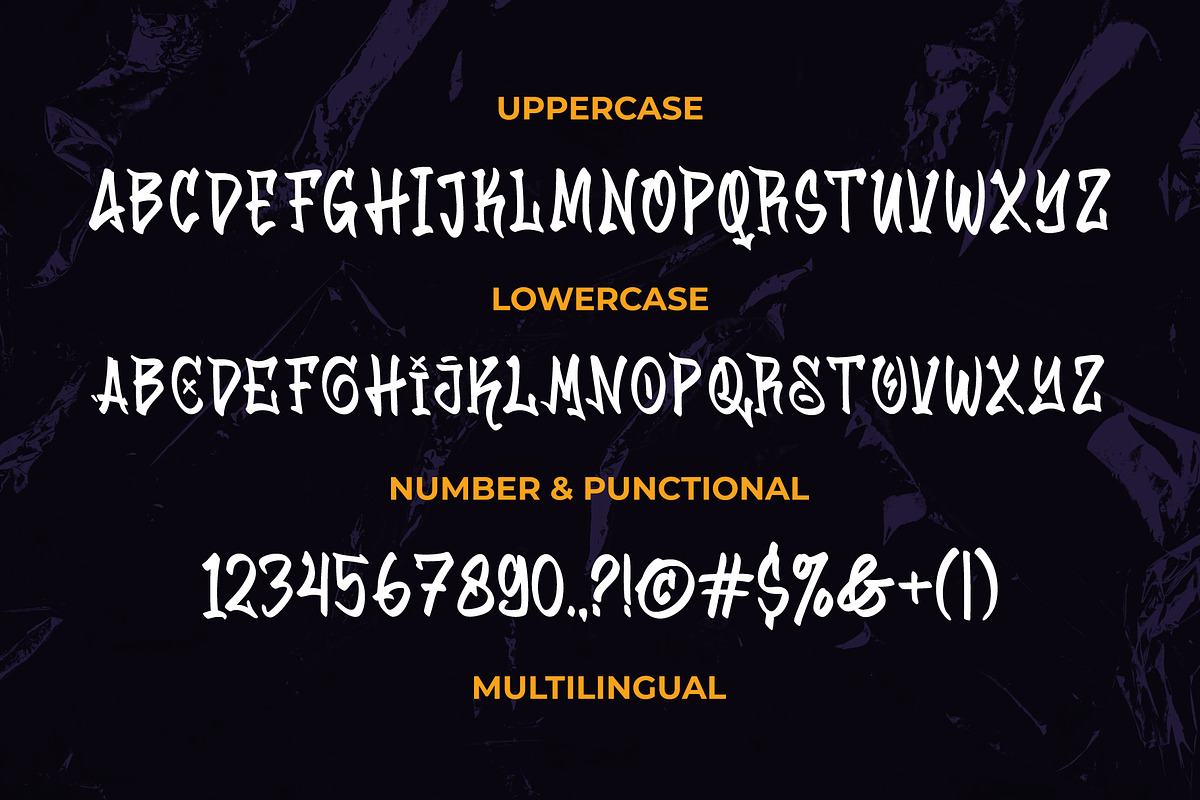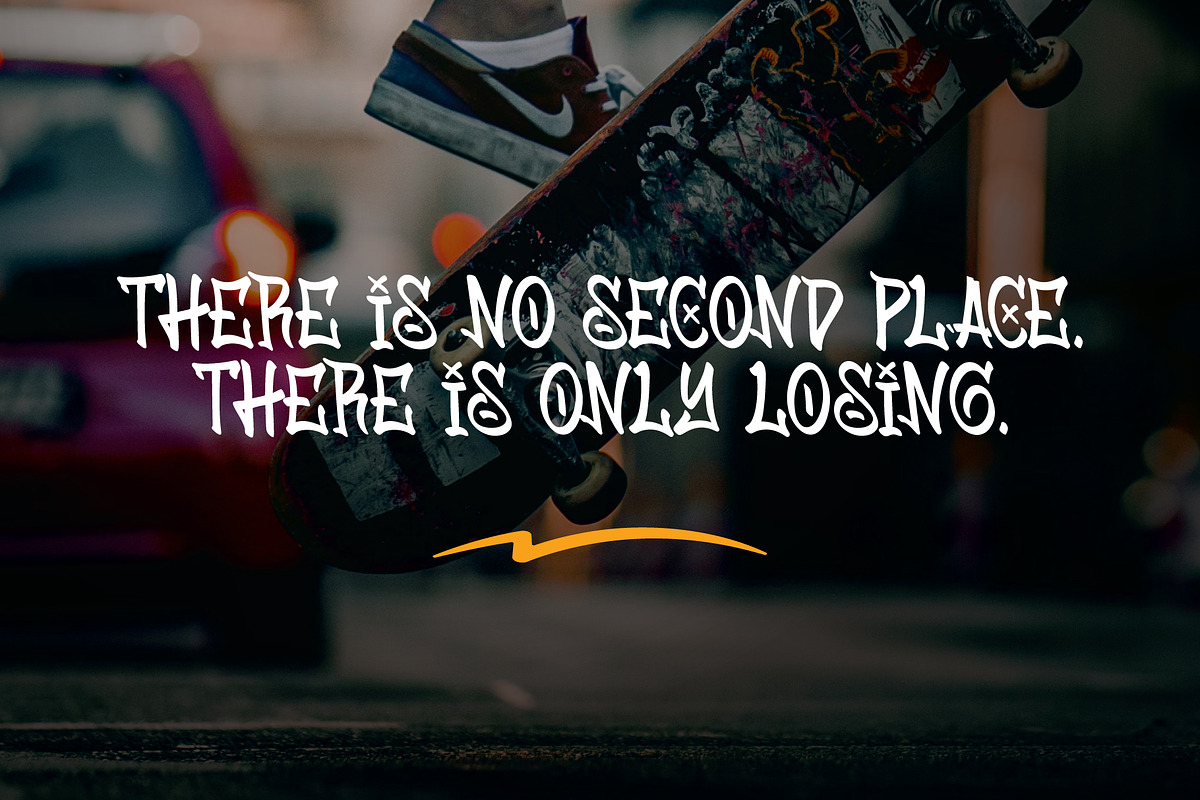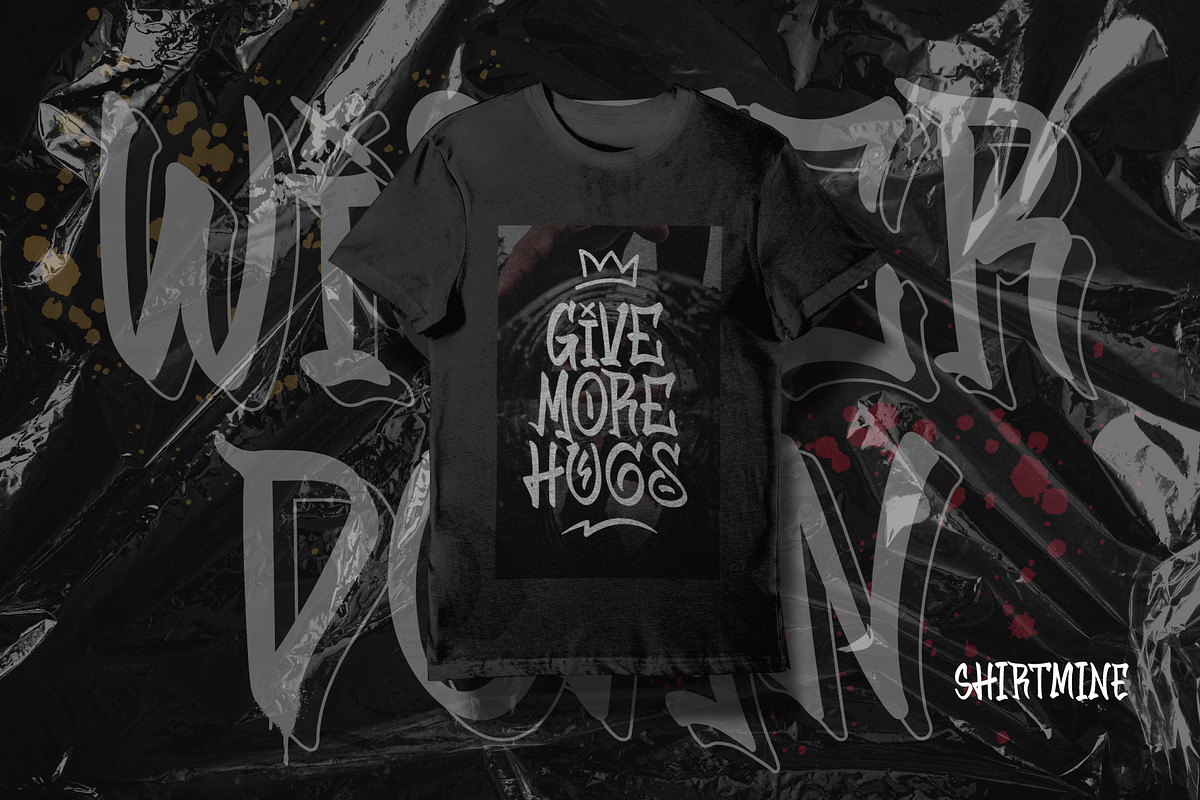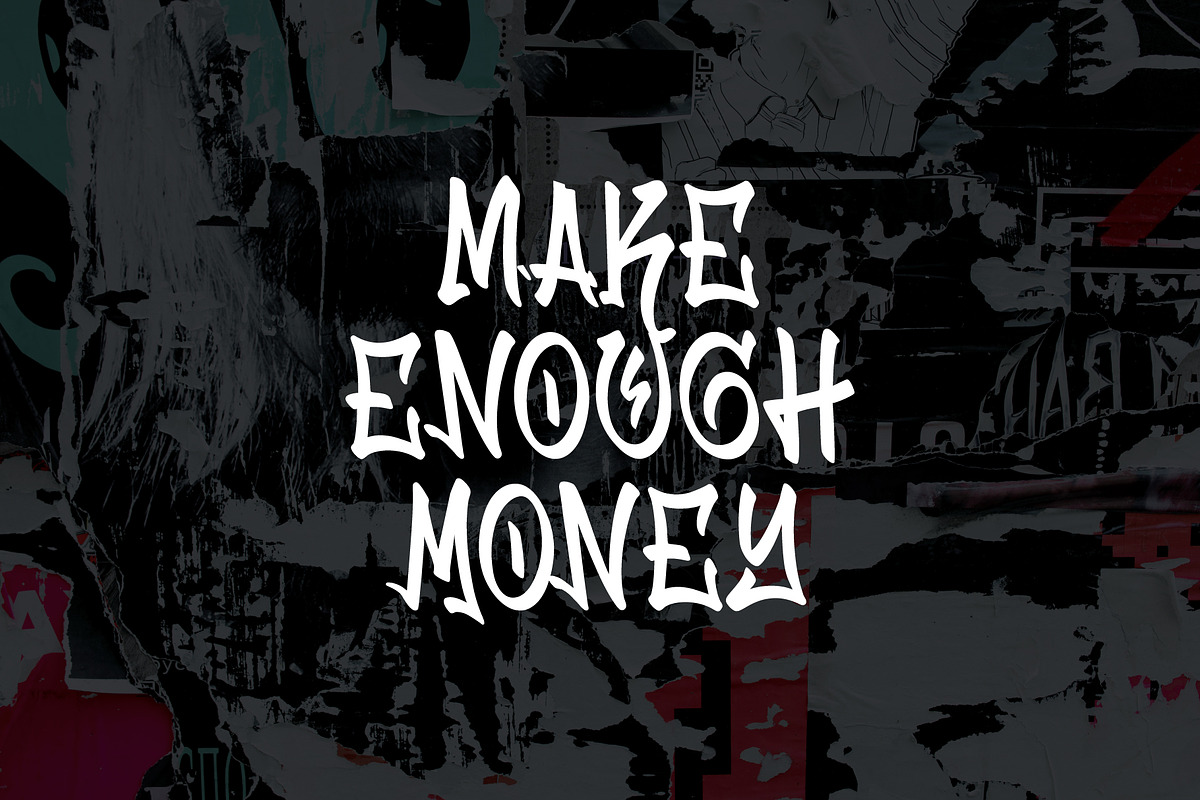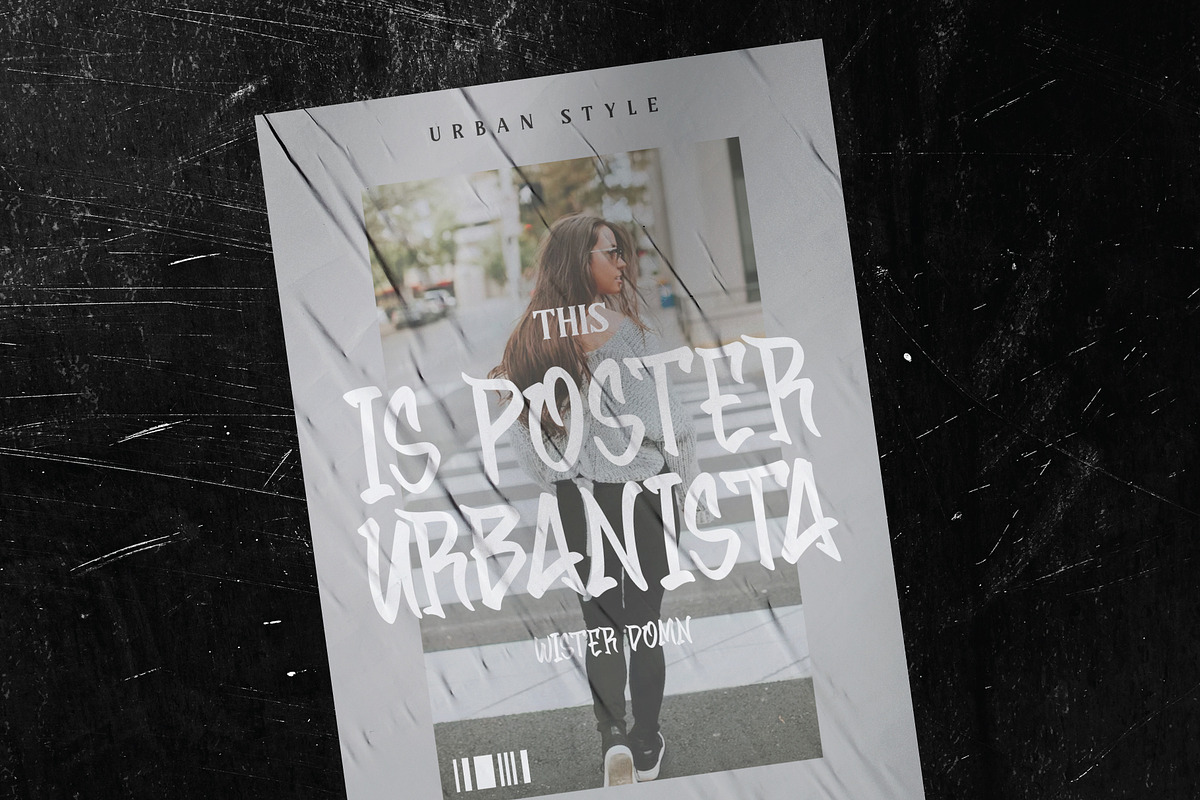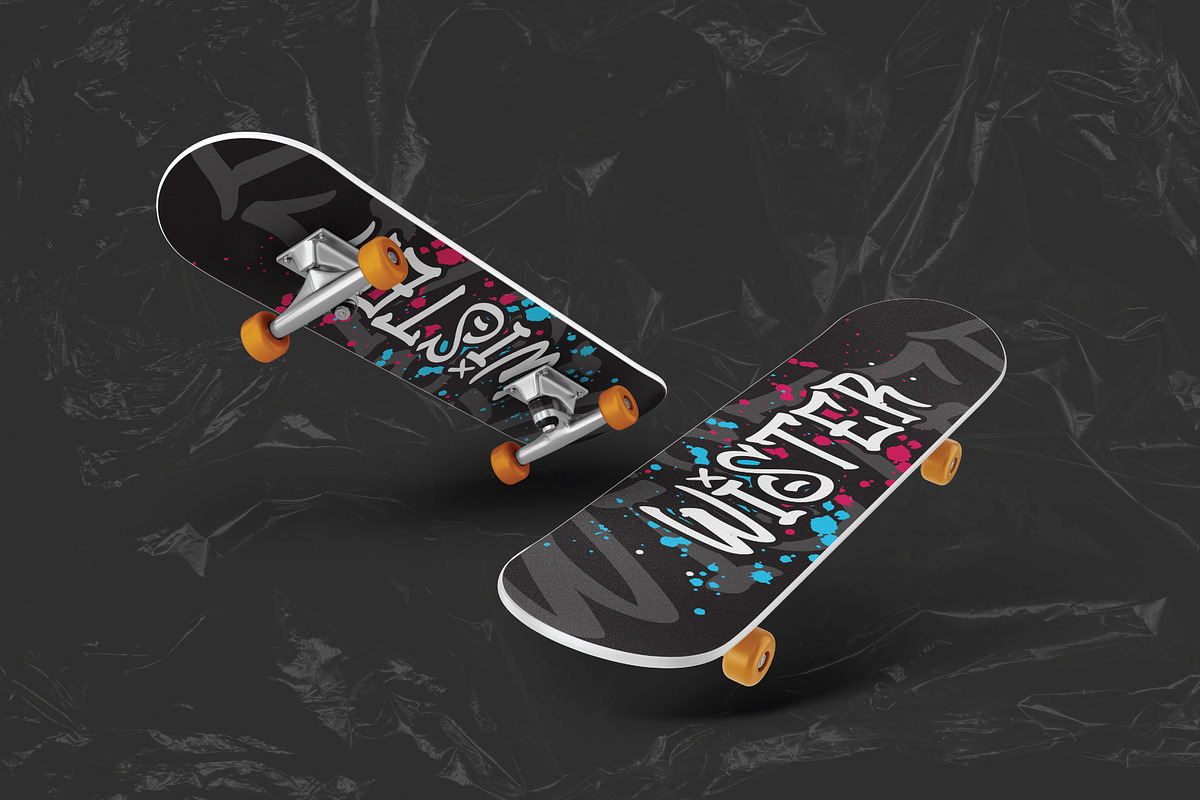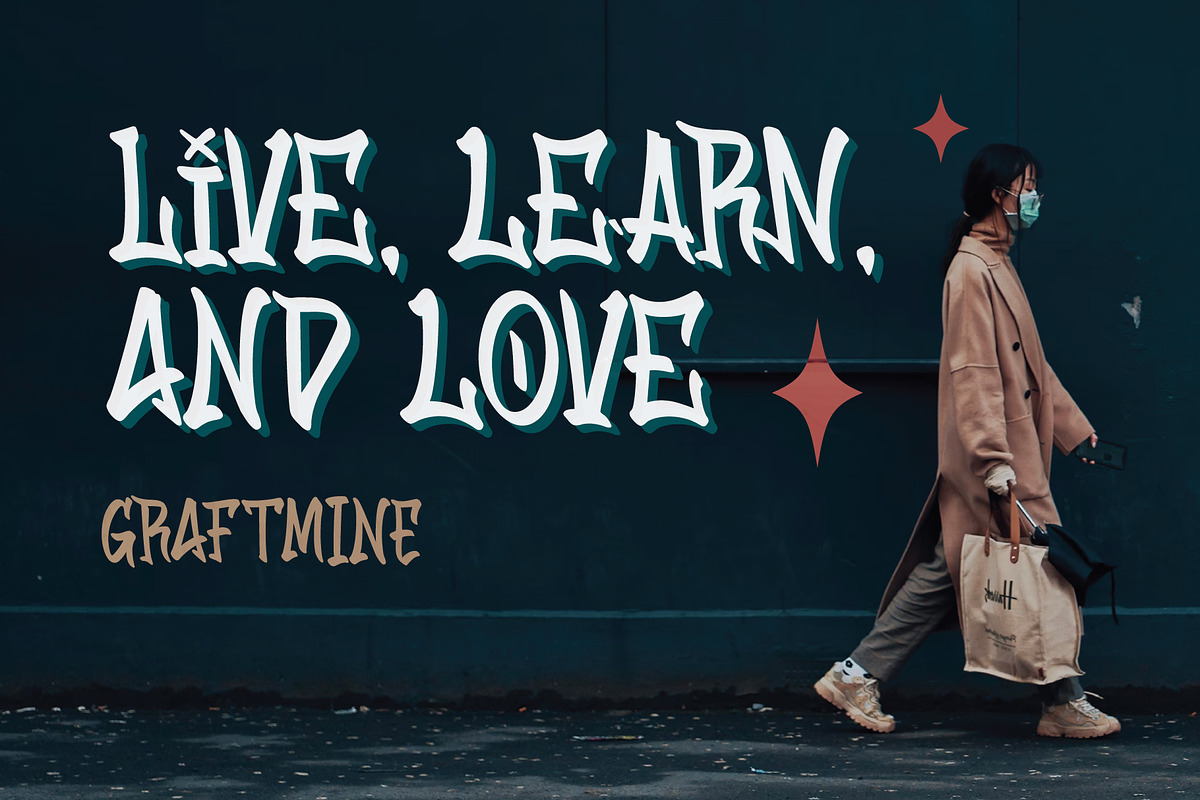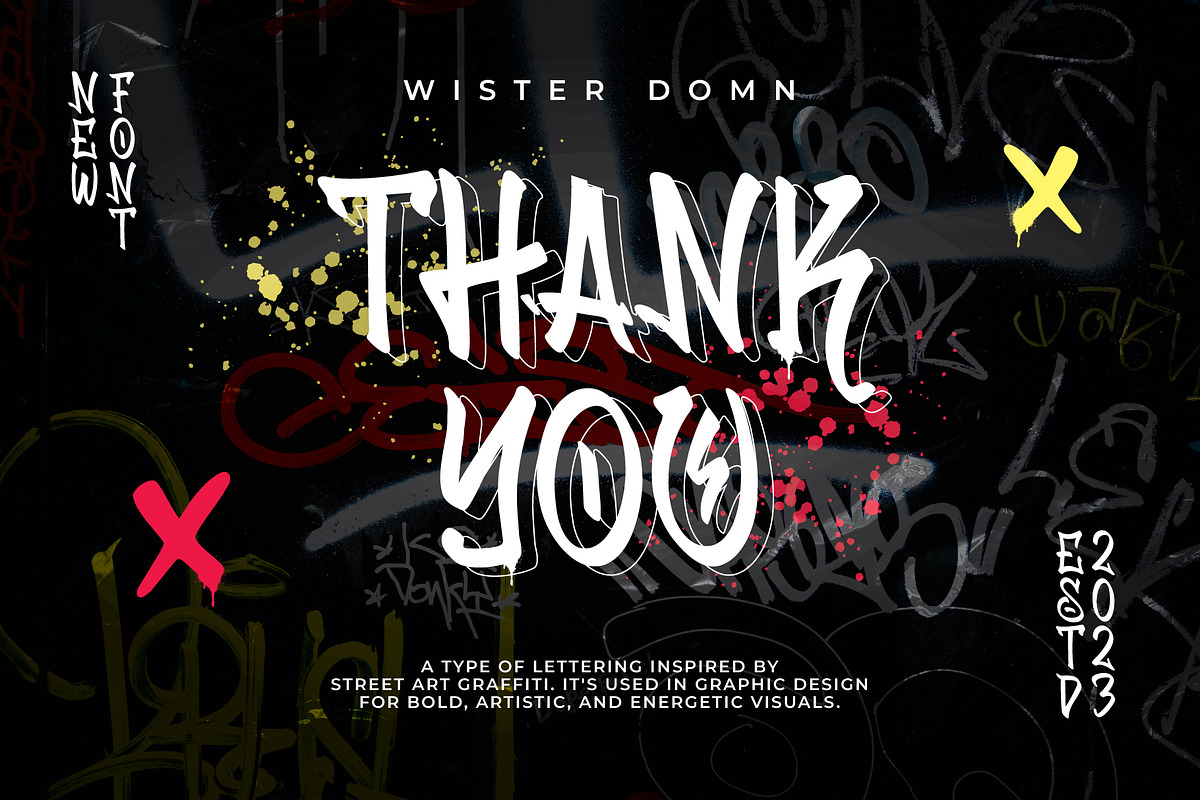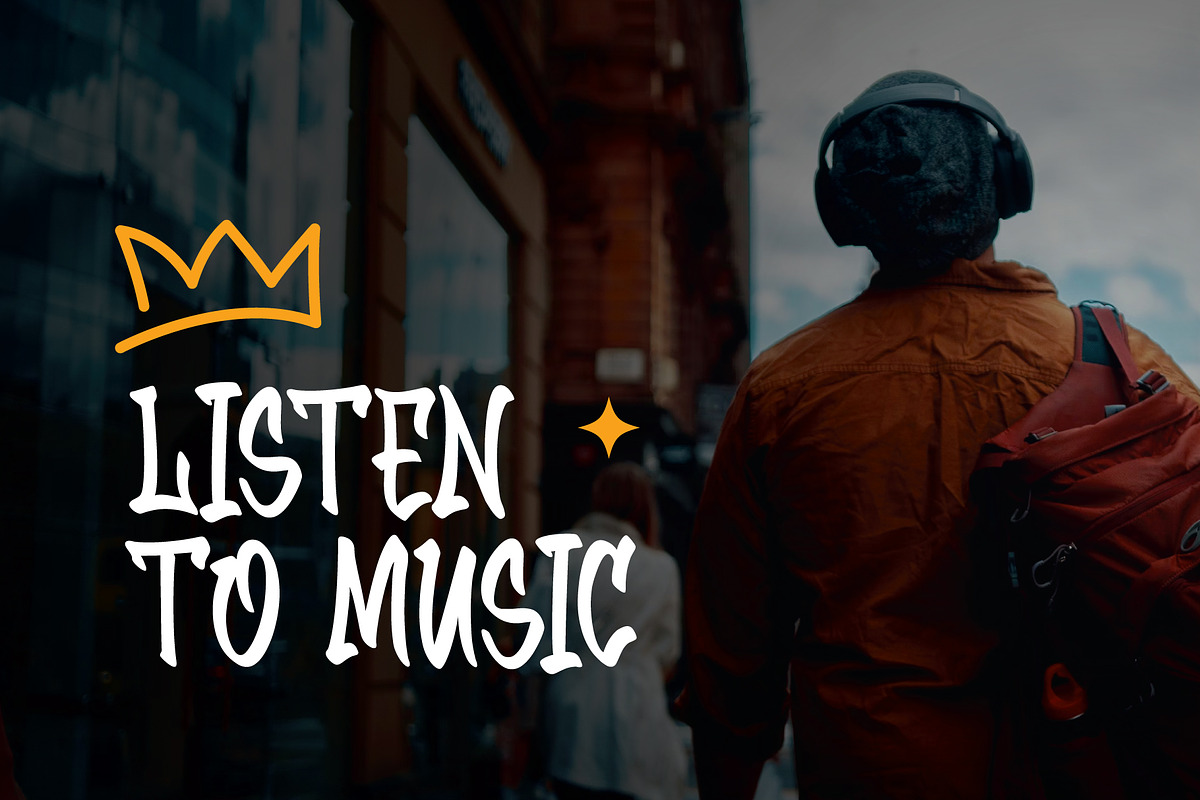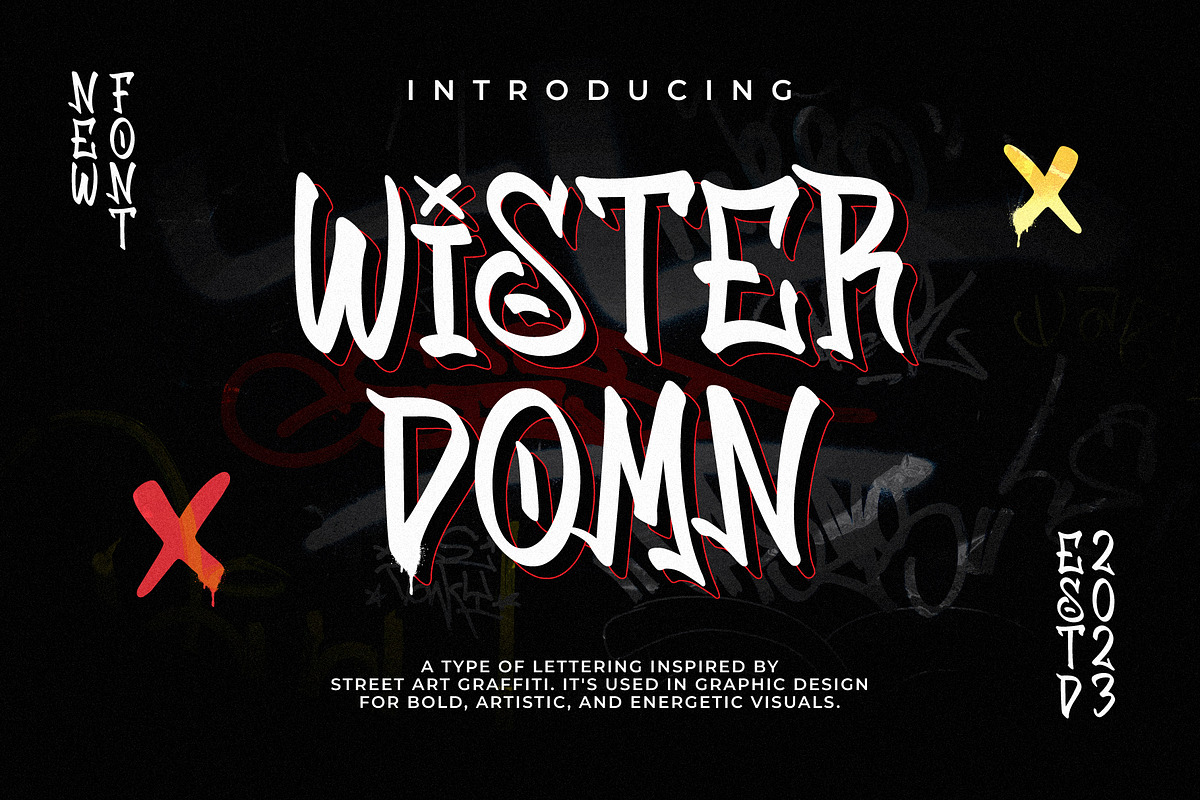
Wister Domn Graffiti Font
Introducing "Wister Domn" - Your Ultimate Graffiti-Inspired Font!
Are you ready to infuse your creative projects with the gritty energy of the urban streets? Look no further than "Wister Domn," the font that brings the raw power of graffiti right to your fingertips.
🔥 Unleash Your Imagination:
Let your creativity run wild as you harness the bold, edgy style of "Wister Domn." This all-caps font is the perfect companion for a wide range of applications, from magazine layouts and promotional content to eye-catching posters, merchandise designs, and so much more.
🎨 Urban Vibes, Everywhere:
Captivate your audience with the unmistakable charm of urban graffiti. "Wister Domn" is the embodiment of the street art culture, allowing you to add that authentic, rebellious feel to your designs. Make your message stand out and leave a lasting impression.
🌎 Multilingual Mastery:
No boundaries here! "Wister Domn" speaks the language of creativity fluently. With full multilingual support, it ensures your message is understood by a global audience. So, whether you're targeting a local community or a worldwide market, this font has you covered.
💥 Features:
- All caps for maximum impact
- A rich set of punctuation marks
- Full multilingual support for versatility across languages and regions
"Wister Domn" is more than just a font; it's a statement, a story, and an attitude. Elevate your projects to the next level with this graffiti-inspired masterpiece that's bound to leave an indelible mark.